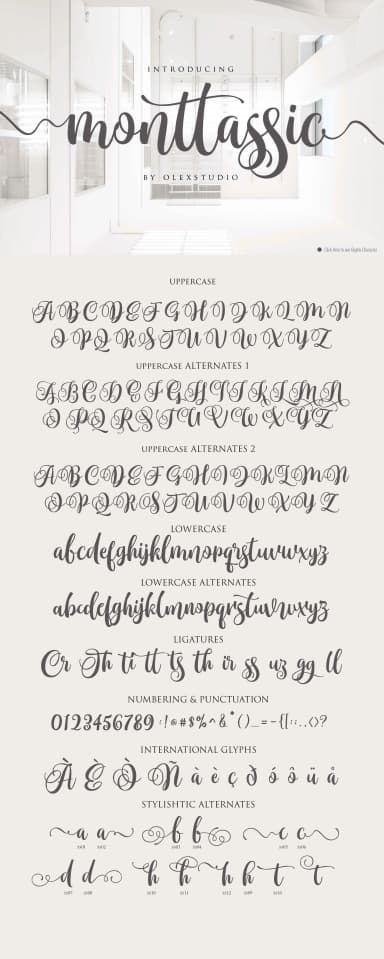
Monttassic Script Font by Olexstudio is a modern, clean handlettered script that combines refined letterforms with authentic, organic character. This thoughtfully designed font bridges the gap between formal elegance and approachable personality, making it a versatile choice for designers seeking genuine handwritten warmth without sacrificing professional polish.
The font excels in wedding invitation suites, where its flowing letters bring understated sophistication to save-the-dates, RSVPs, and reception cards. Creative professionals reach for it when designing cosmetics and beauty packaging, especially for brands emphasizing artisanal quality or luxury positioning. Social media content creators use it for romantic quote graphics and lifestyle imagery, while stationery designers appreciate its flexibility for personalized letterhead, thank-you cards, and elegant greeting card suites. The clean execution maintains excellent readability across digital displays and premium print finishes.
Monttassic works equally well for boutique brand identities, from specialty food labels to feminine-focused publications and lifestyle brands. Its handcrafted appearance feels genuinely organic without becoming overly decorative, allowing it to function beautifully in both contemporary and timeless design contexts. Whether you're designing intimate event stationery or developing a distinctive brand voice, this script delivers elegance with restraint and sophistication. Get Monttassic Script Font on Creative Fabrica to add refined handlettered elegance to your projects.
Monttassic Script Font is a script font that shines as a display or heading face. Pair it with a clean sans-serif or serif font for body text β the contrast creates a clear hierarchy while the two styles stay balanced and easy to read.
Monttassic Script Font
by Olexstudio